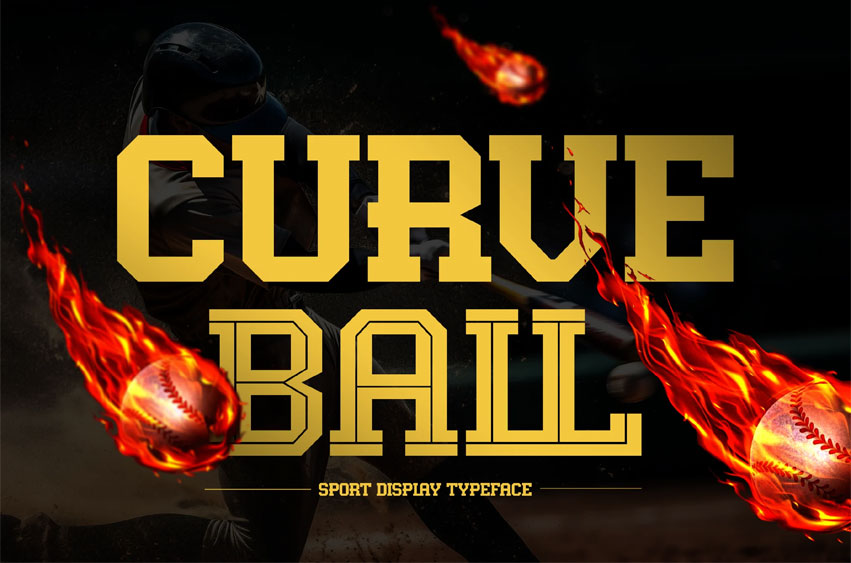
Curveball Font is a strong and energetic sport display font, designed to bring boldness and power to your designs. With sharp edges and dynamic shapes, this typeface captures the spirit of competition and motion.
Perfect for designers looking to create standout headlines, sports posters, apparel prints, team merchandise, logos, social media graphics, and promotional materials, Baseball Curveball delivers a strong visual identity with a nostalgic touch. Its handcrafted curves bring an authentic and impactful look, making it ideal for any project that aims to feel energetic, competitive, and timeless.
This typeface is crafted to ensure excellent readability at any size, and it comes with clean, well-balanced letterforms that work seamlessly across digital and print media. Whether you’re designing for sports brands, event promotions, fan gear, or editorial layouts, Baseball Curveball adds character and personality to every piece.
Bring the charm of classic sports typography into your design projects and make your visuals look bold, iconic, and professionally crafted.